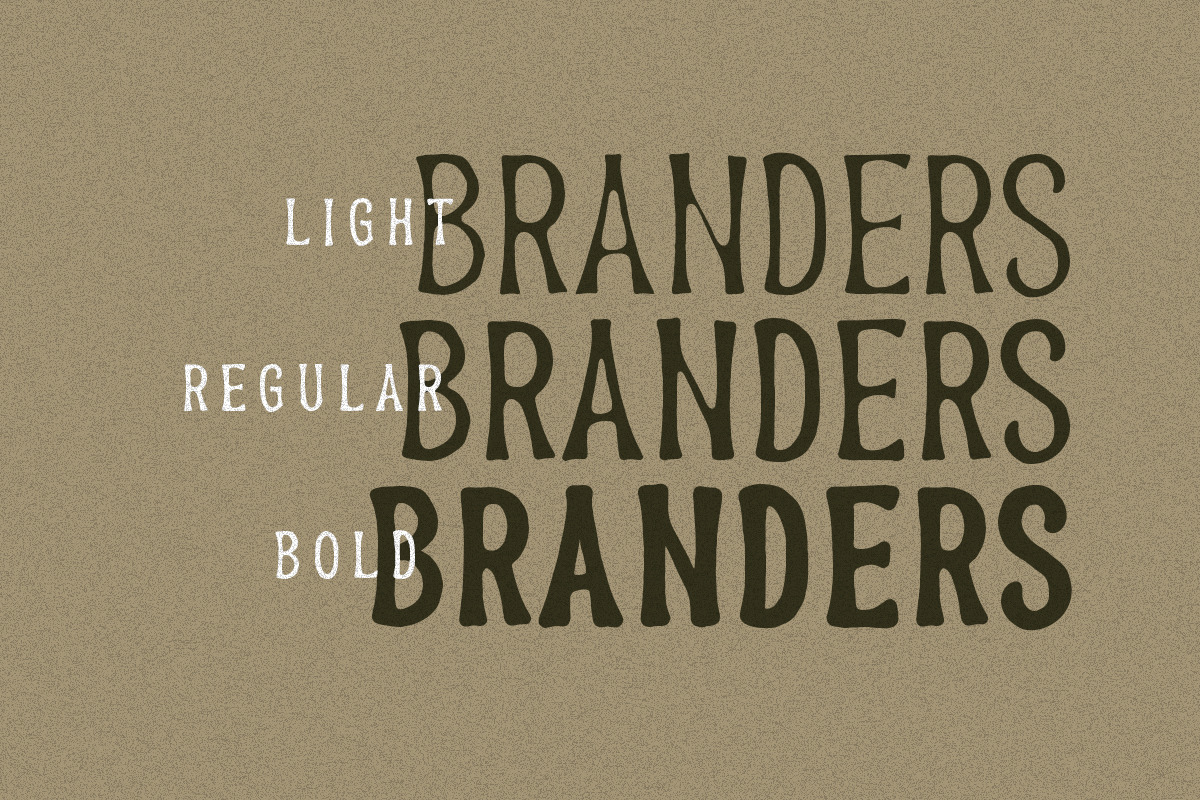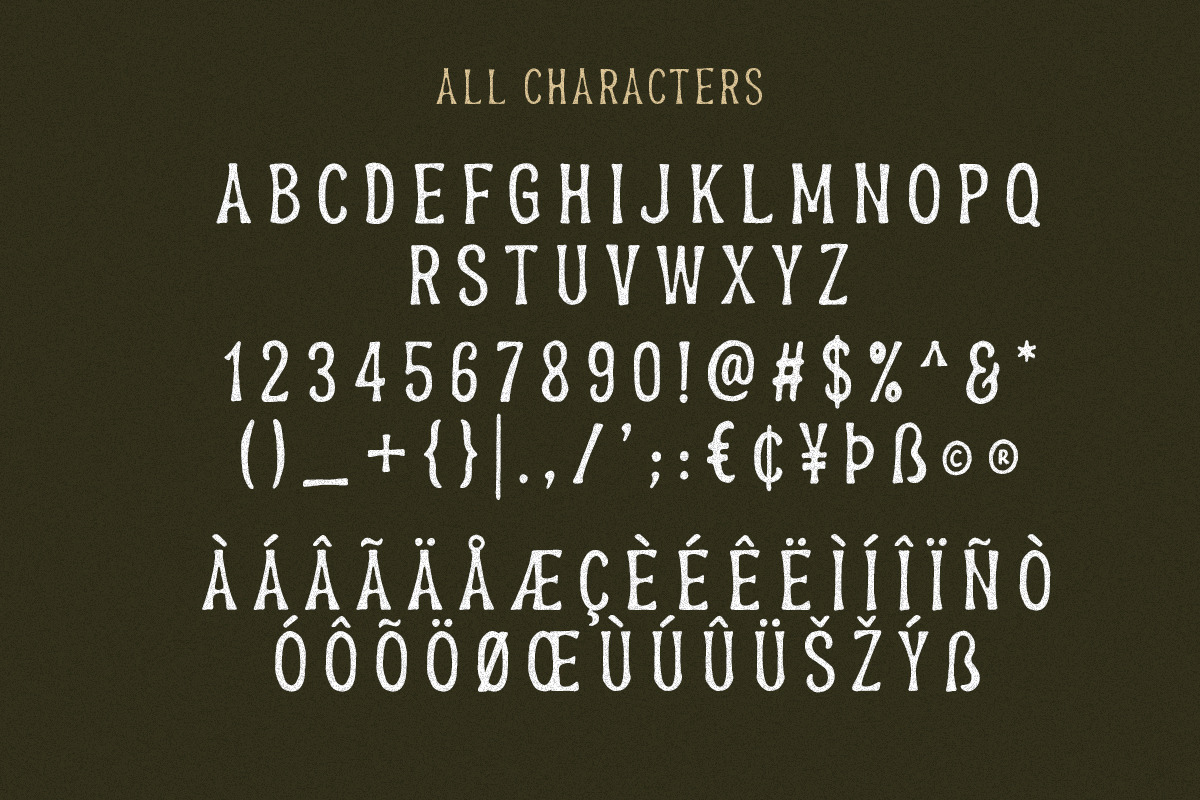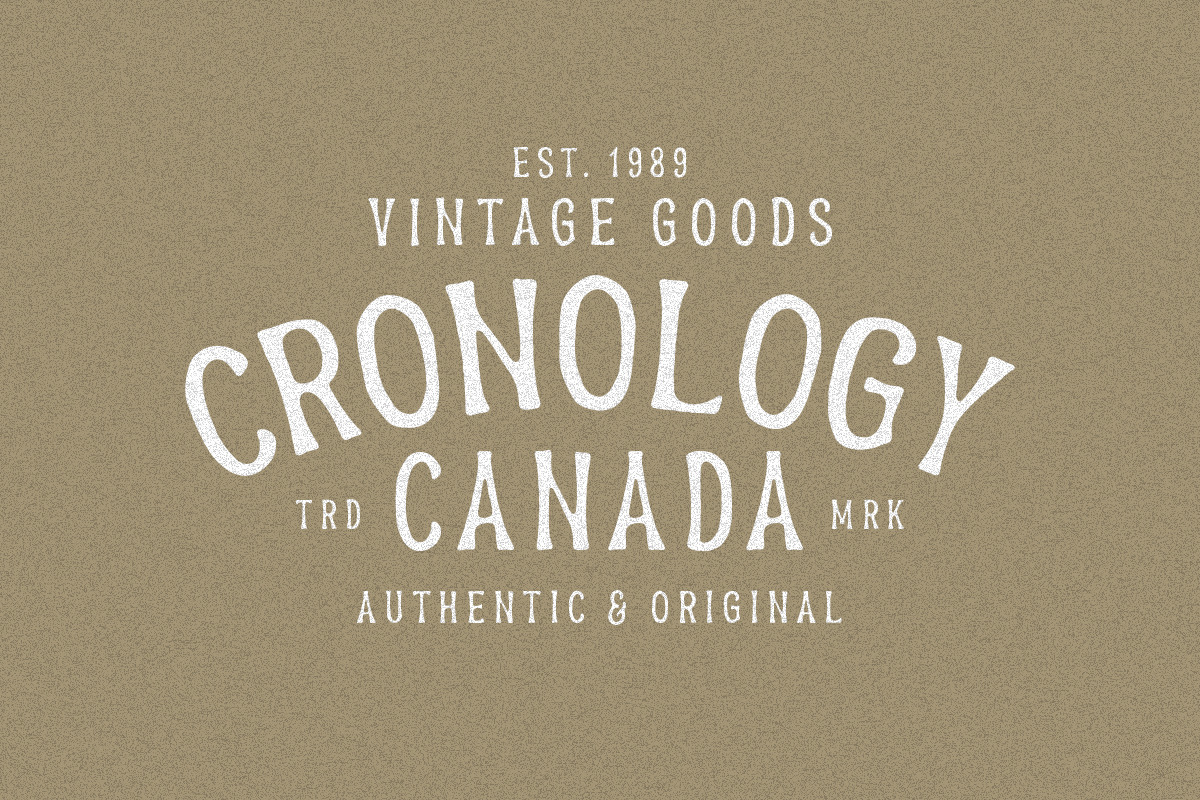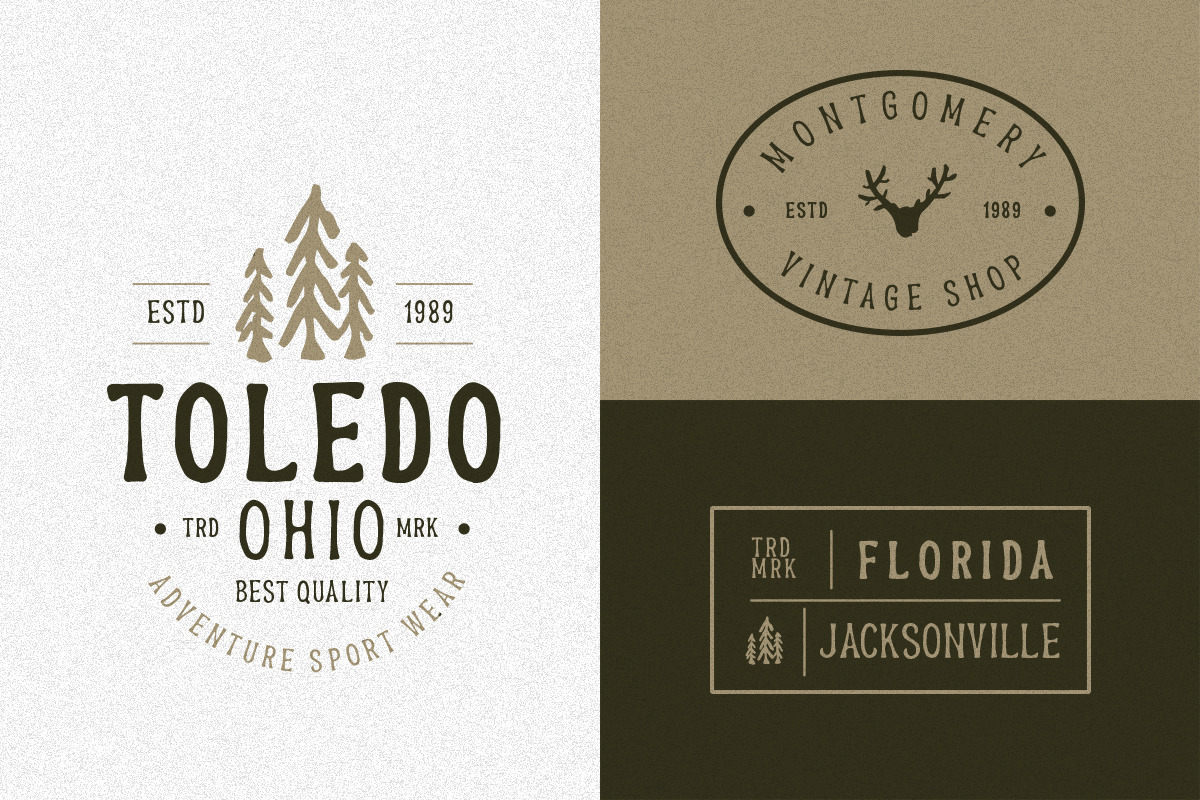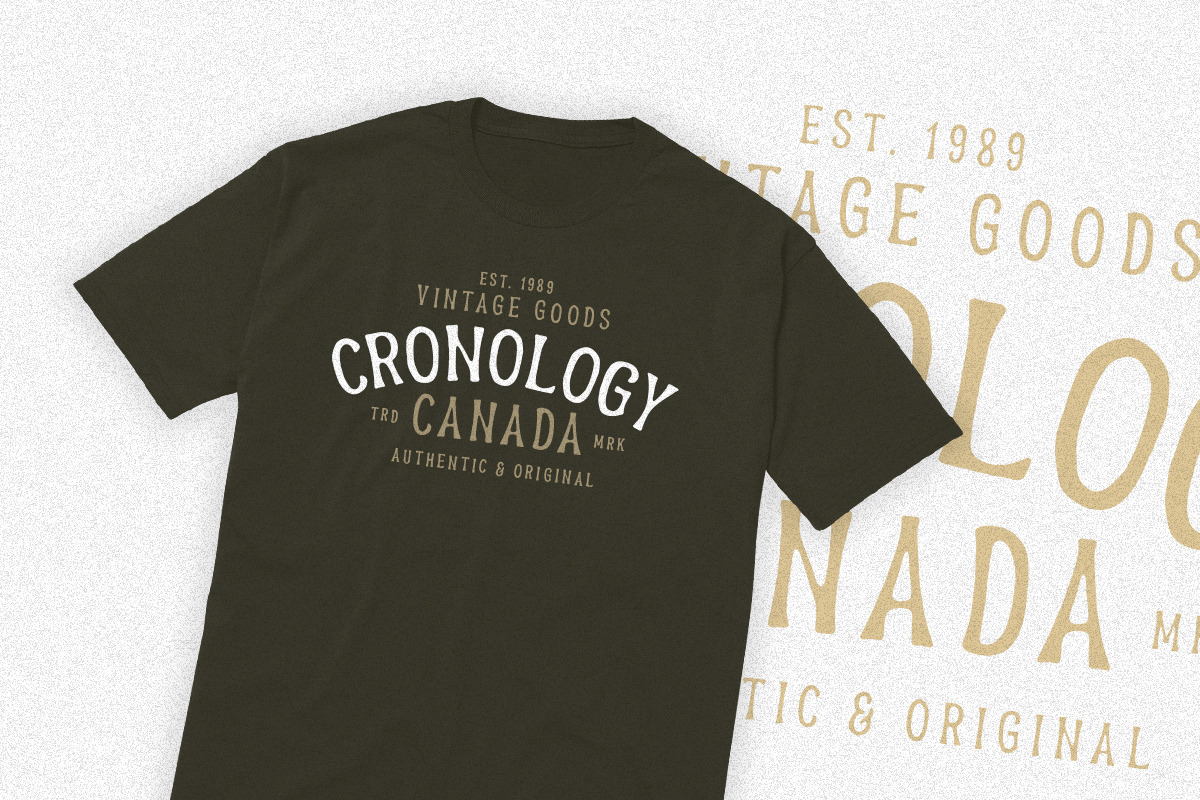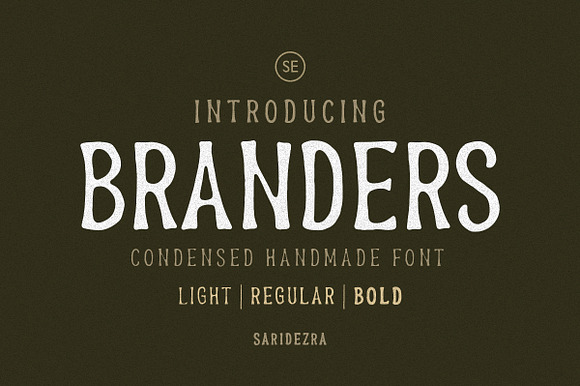
Branders - Condensed Handmade Font
Branders is a font family that contains a light, regular and bold style. You can use these fonts for various purposes such as making an emblem logo, for promotions, or other purposes that will make your design more real as handmade. This font also support multi language.
- Branders is a font family that contains a light, regular and bold style.
- Branders Light
- Branders Regular
- Branders Bold
Branders - Condensed Handmade Font by Sarid Ezra fits naturally into Branding, posters, packaging, typography.